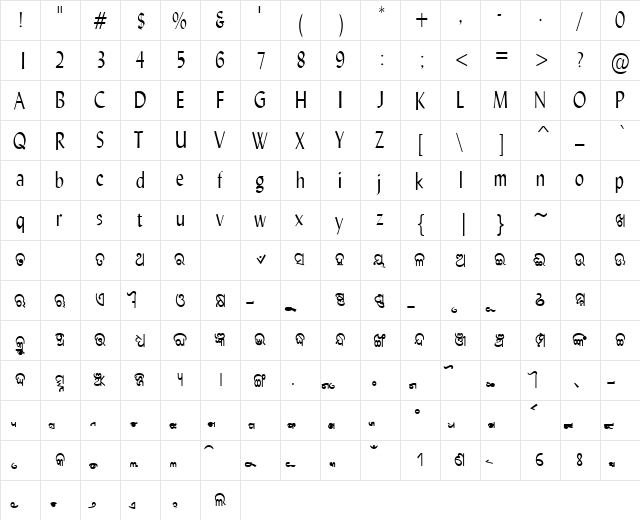
AkrutiOfficeJaganath Normal
Design Context for AkrutiOfficeJaganath Typeface
AkrutiOfficeJaganath takes a measured approach to typography — its balanced proportions and neutral character make it a reliable workhorse for both digital and print work.